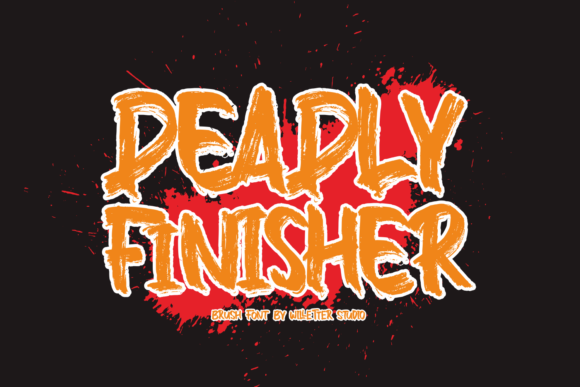
Introducing Deadly Finisher, the font that exudes boldness and grit, a stunning creation by Willetter Studio. This display font is not just a collection of letters; it's a masterpiece that will infuse your designs with an irresistible charm.
Deadly Finisher isn't just another font; it's a declaration of style. Its bold strokes and brushed texture evoke a sense of raw energy and untamed creativity. With its casual yet trendy vibe, this font is a perfect match for any informal design project.
Whether you're designing eye-catching posters, captivating social media posts, or unique branding materials, Deadly Finisher will make your words stand out with a captivating presence. Its distinct character adds depth and personality to any design, leaving a lasting impression on your audience.
Experience the thrill of creating designs that ooze attitude and style. Deadly Finisher is more than just a font; it's a tool that unleashes your creativity and ignites your passion for design. Embrace the power of Deadly Finisher and watch your designs transform.
Don't settle for ordinary fonts that blend into the background. Choose Deadly Finisher and let your designs radiate with individuality and confidence. Make a statement, capture attention, and leave a lasting impact with every design you create.
Deadly Finisher is your ticket to unlock a world of creative possibilities. It's the font that ignites your imagination and pushes the boundaries of design. Are you ready to unleash your creativity and create designs that leave an indelible mark?